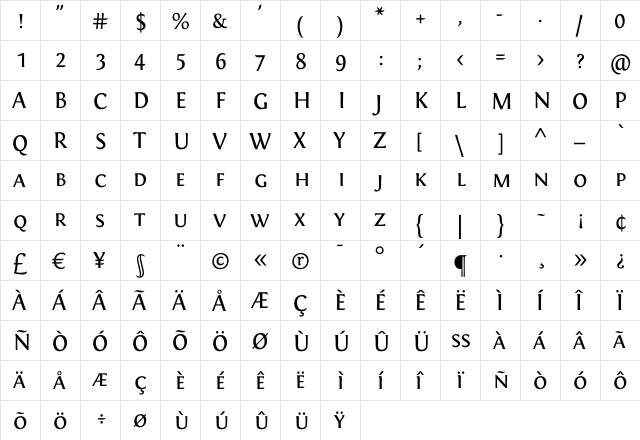
Fontin SmallCaps
Design Context for Fontin Typeface
Fontin takes a measured approach to typography — its balanced proportions and neutral character make it a reliable workhorse for both digital and print work.